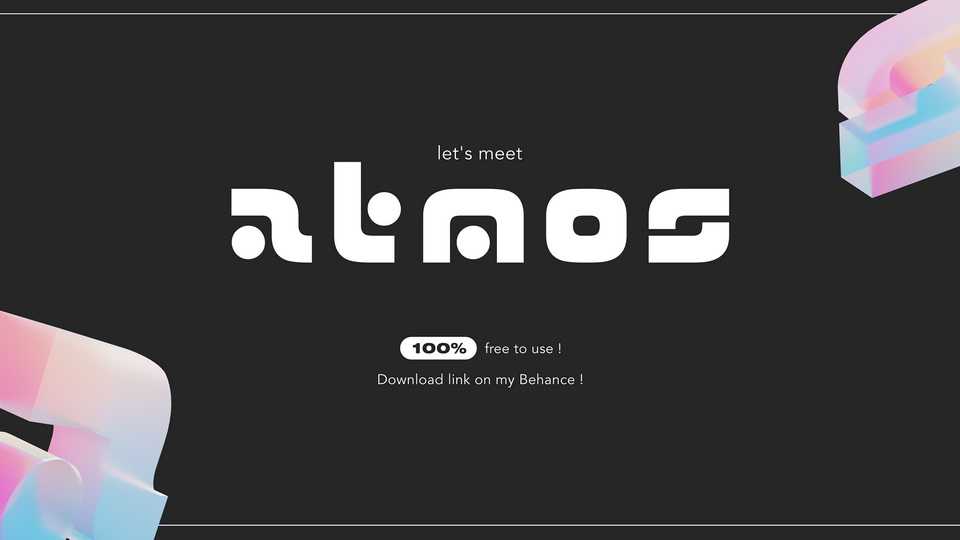
Download Atmos font, a modern modular display typeface with a futuristic look. Atmos can be used for posters, music covers, t-shirts, websites, social media, projects related to the future and space.
Designer: Thomas DMZL